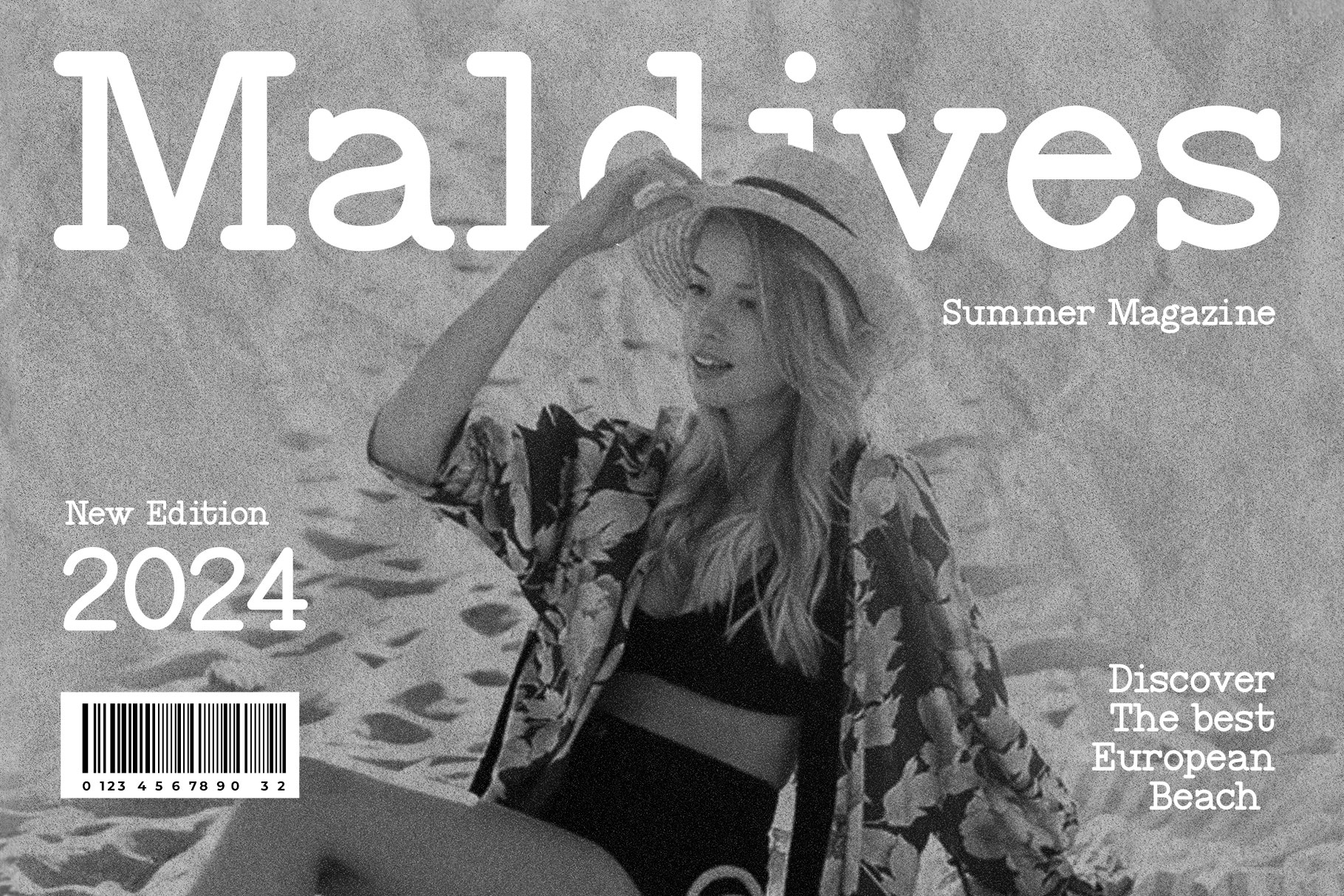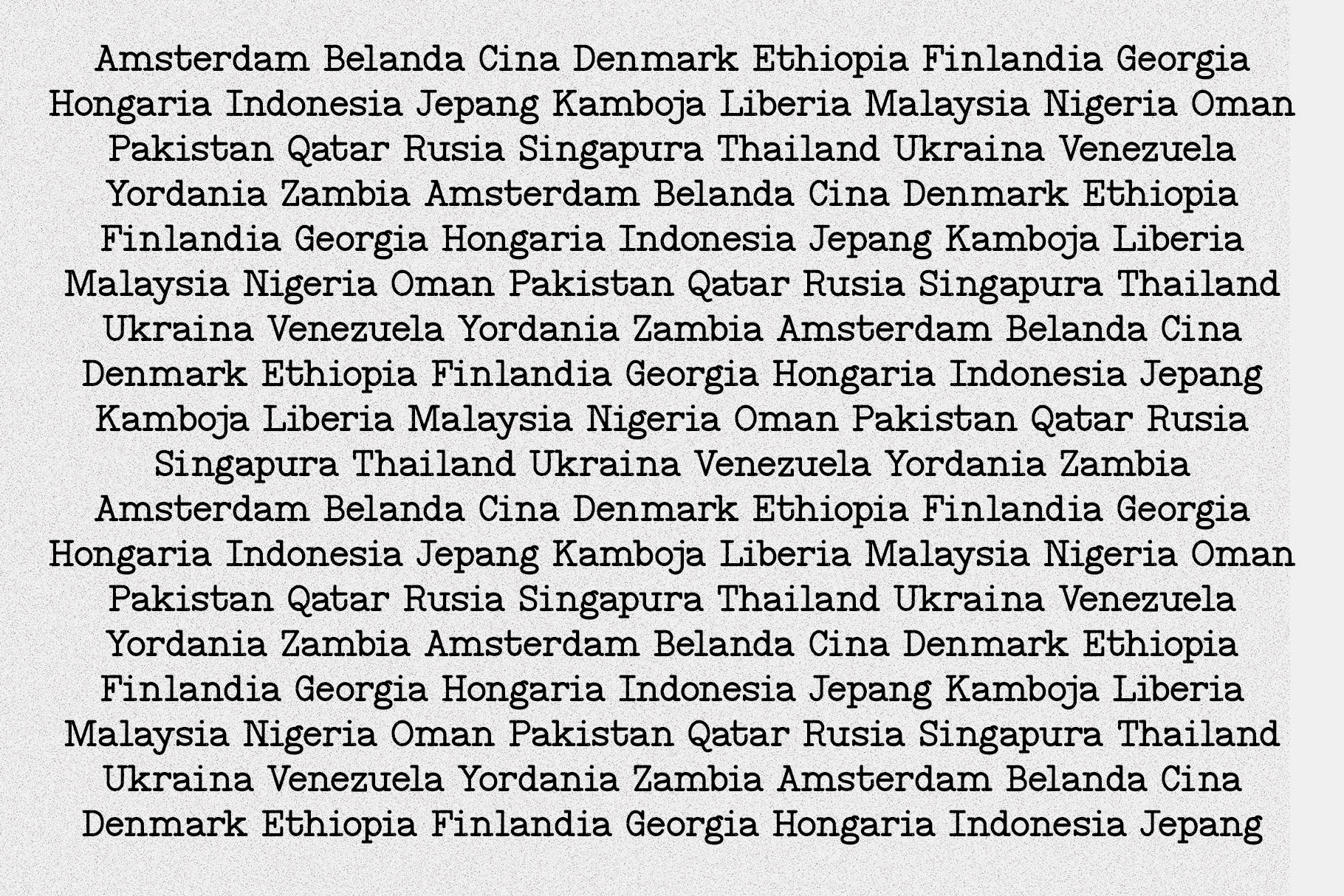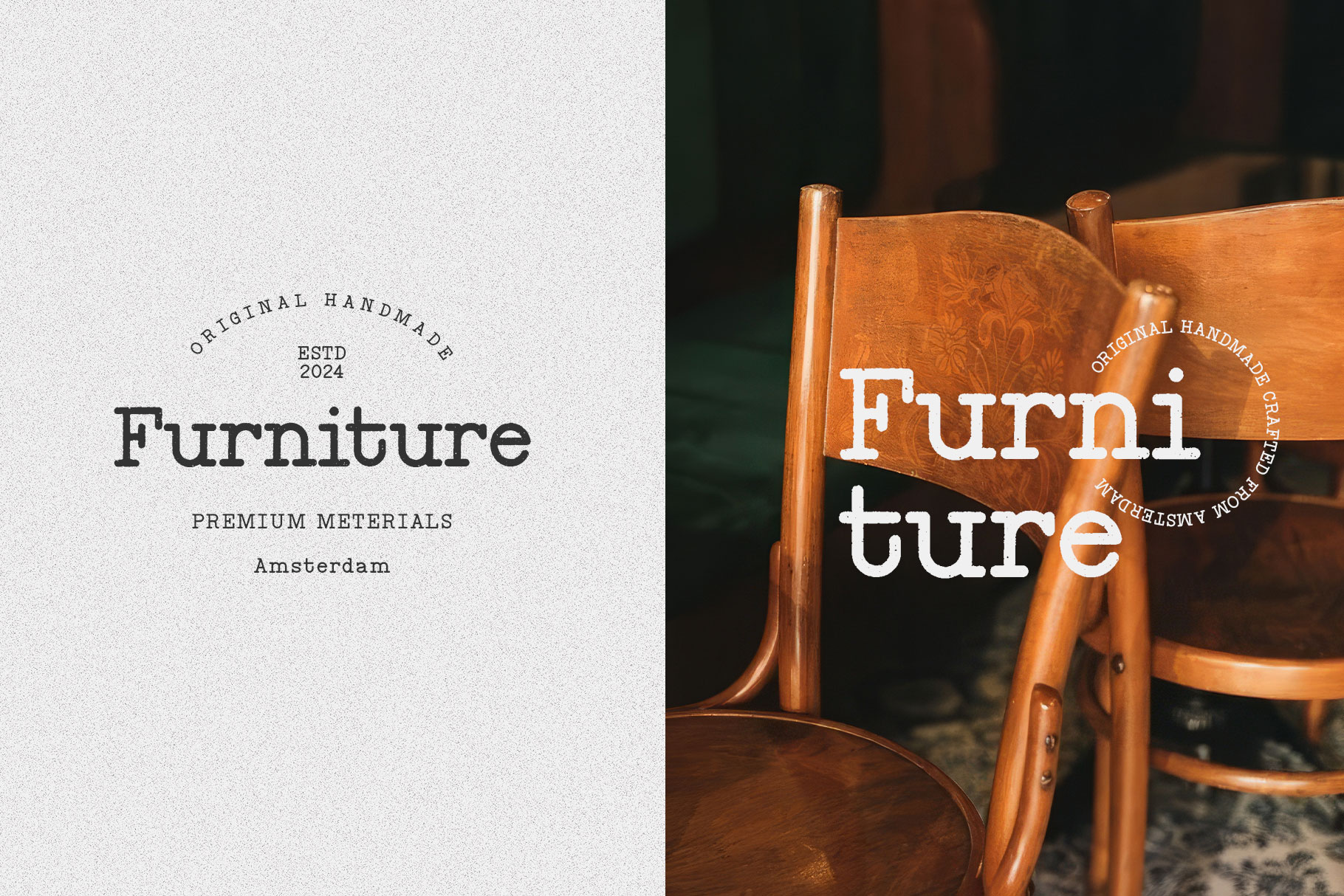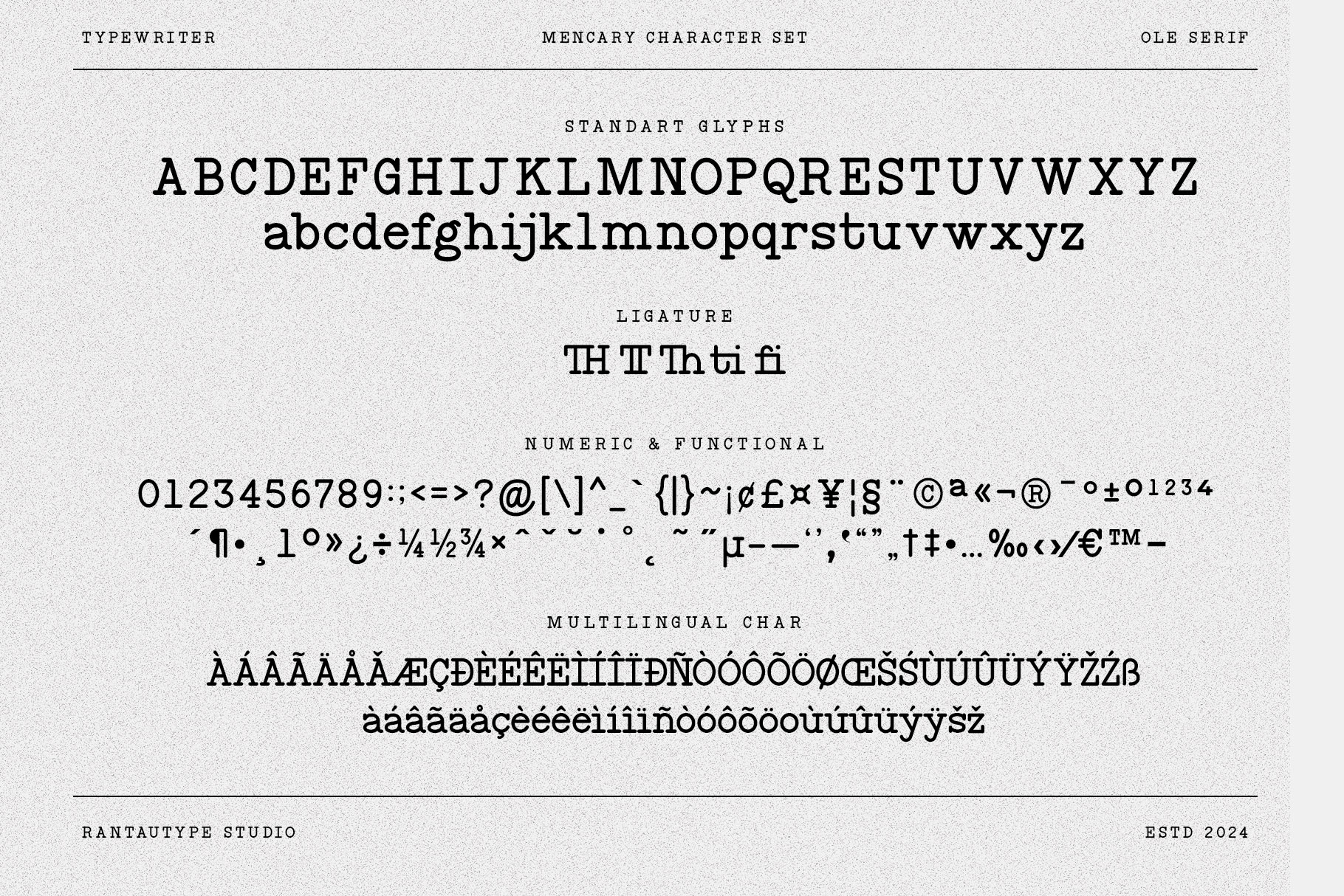
Mencary A Old Typewriter Font
Mencary is typewriter font inspire inspired by the Vintage Writing Machine. Mencary come with two style in reguler (clean) and rough for an older impression.
Mencary is a perfectly choice for any creative endeavor, lifestyle design such as logos, advertisements, stationery, branding project, display and magazine, invitation, corporate brand, product design, label, business project and many other project with handwritter touch.